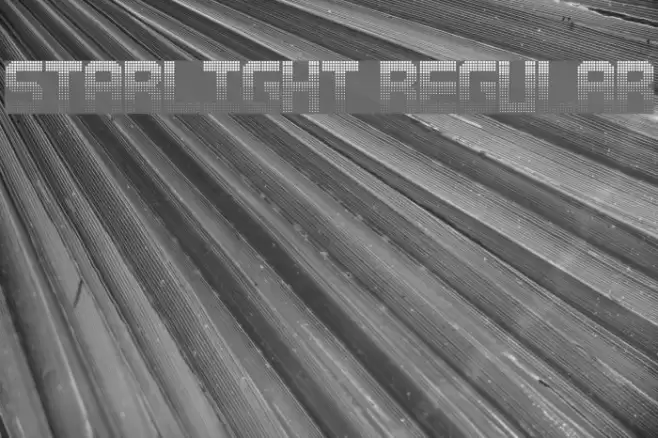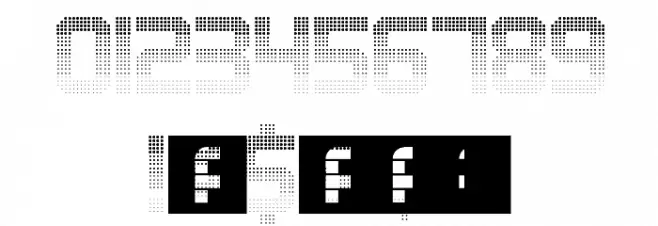
Starlight Regular Font
Starlight Regular Description
This font features a unique dotted pattern that creates a futuristic and digital aesthetic. Each character is composed of a grid of dots, giving it a pixelated appearance reminiscent of early digital displays. The uppercase and lowercase letters maintain a consistent style, with clean lines and geometric shapes. The numbers and special characters follow the same design principles, ensuring uniformity across the entire typeface. This font's distinct style makes it stand out, offering a modern and tech-inspired look that is both eye-catching and versatile.
A futuristic, dotted font with a pixelated, digital display aesthetic from Fancy fonts.
- Proposed Projects: Ideal for digital art projects, tech-themed designs, video game graphics, and futuristic branding.
- Use Case: Logos, Headlines, Digital displays